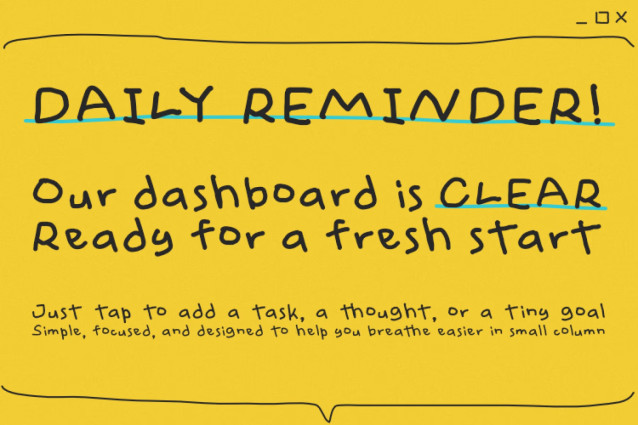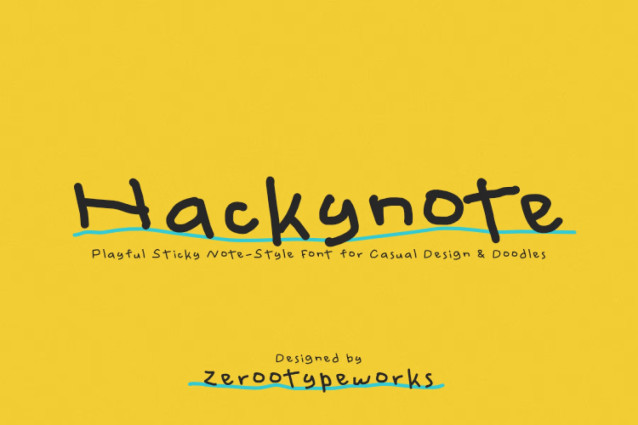
ZRTW Hackynote Font
ZRTW Hackynote Font is a playful handwritten font designed to bring a personal, casual feel to your notes, planners, and creative projects. With its natural letterforms and sticky note-style personality, it’s perfect for students, content creators, or educators who want to add warmth and fun to their digital designs. Hackynote is great for social media, journaling, YouTube, or even bullet journals, making every message feel thoughtful and approachable.